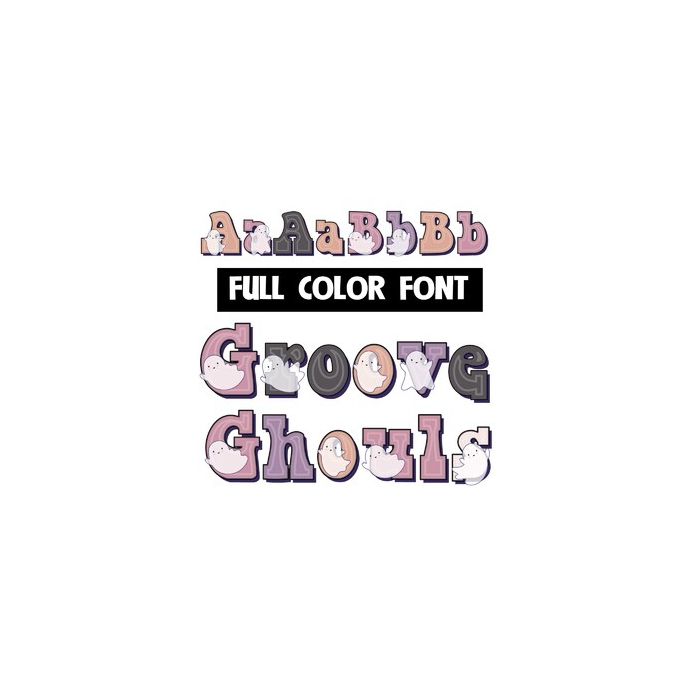
This retro style lettering is a full-color font w/ little ghosts on each letter. There is an alt case of a secondary color w/o ghosts available through your system or Silhouette's glyph map.